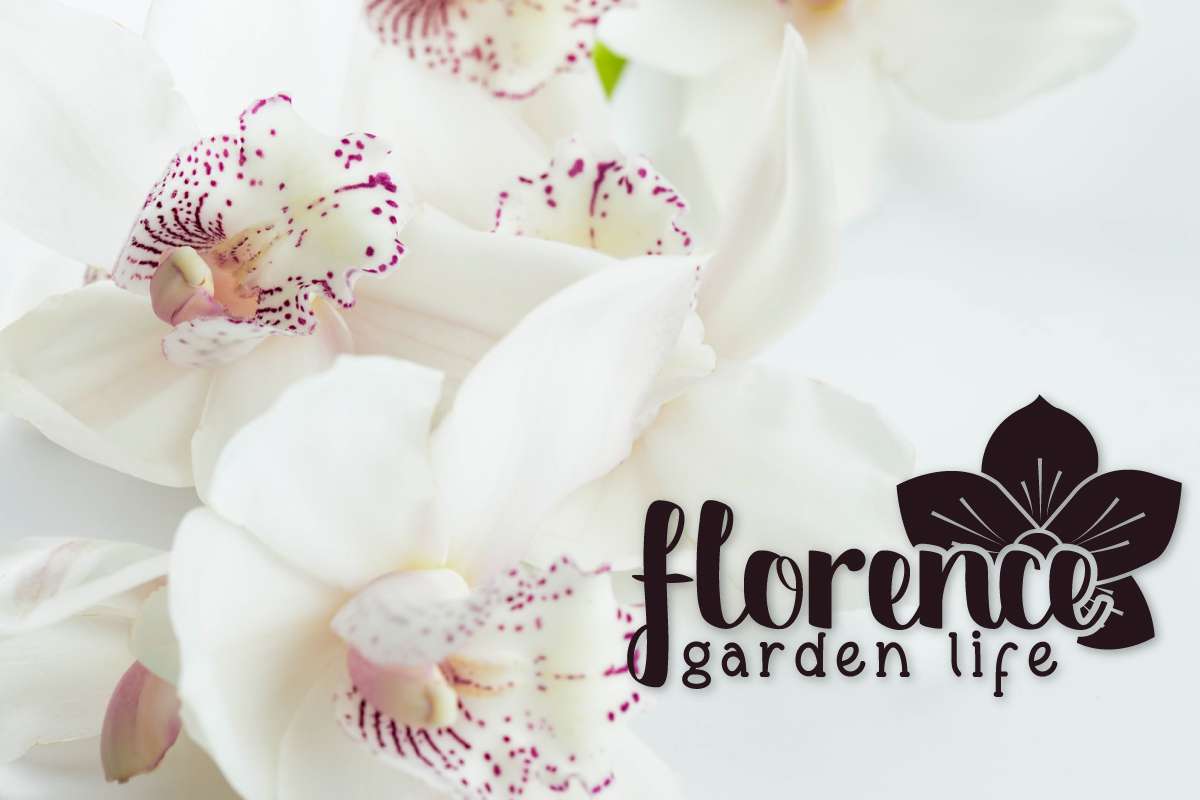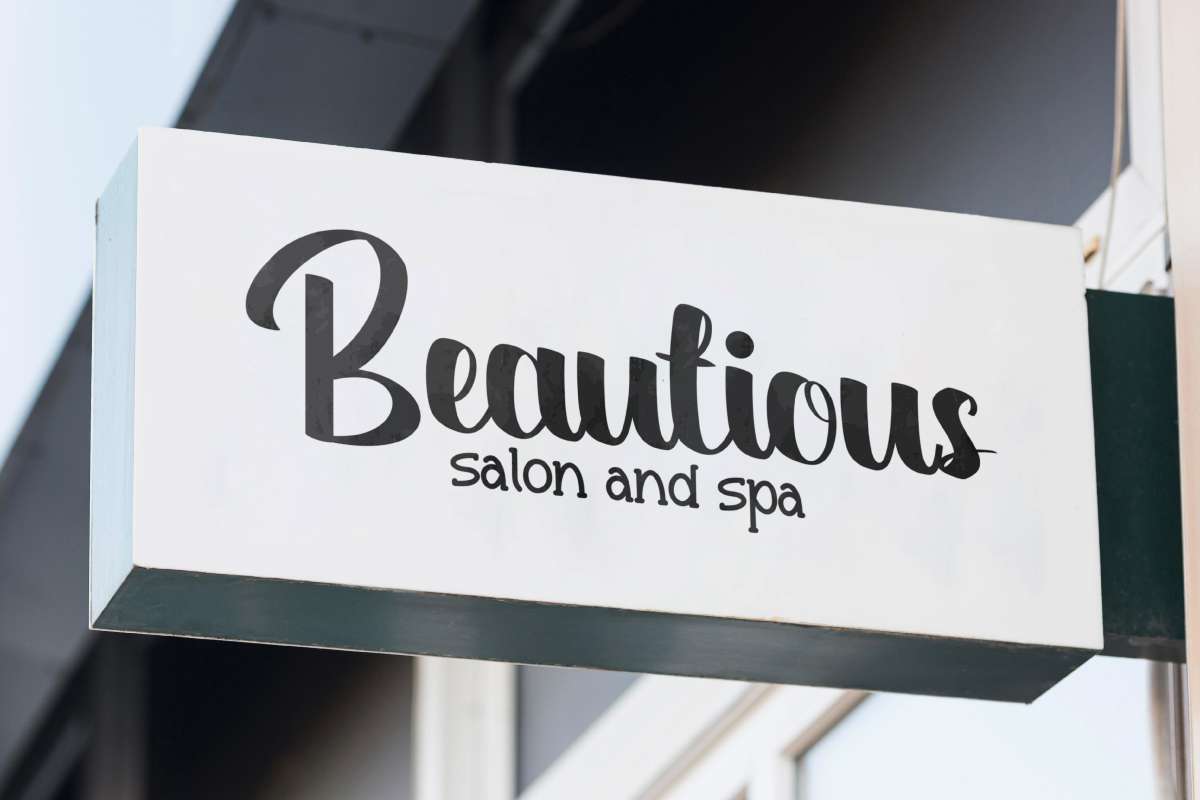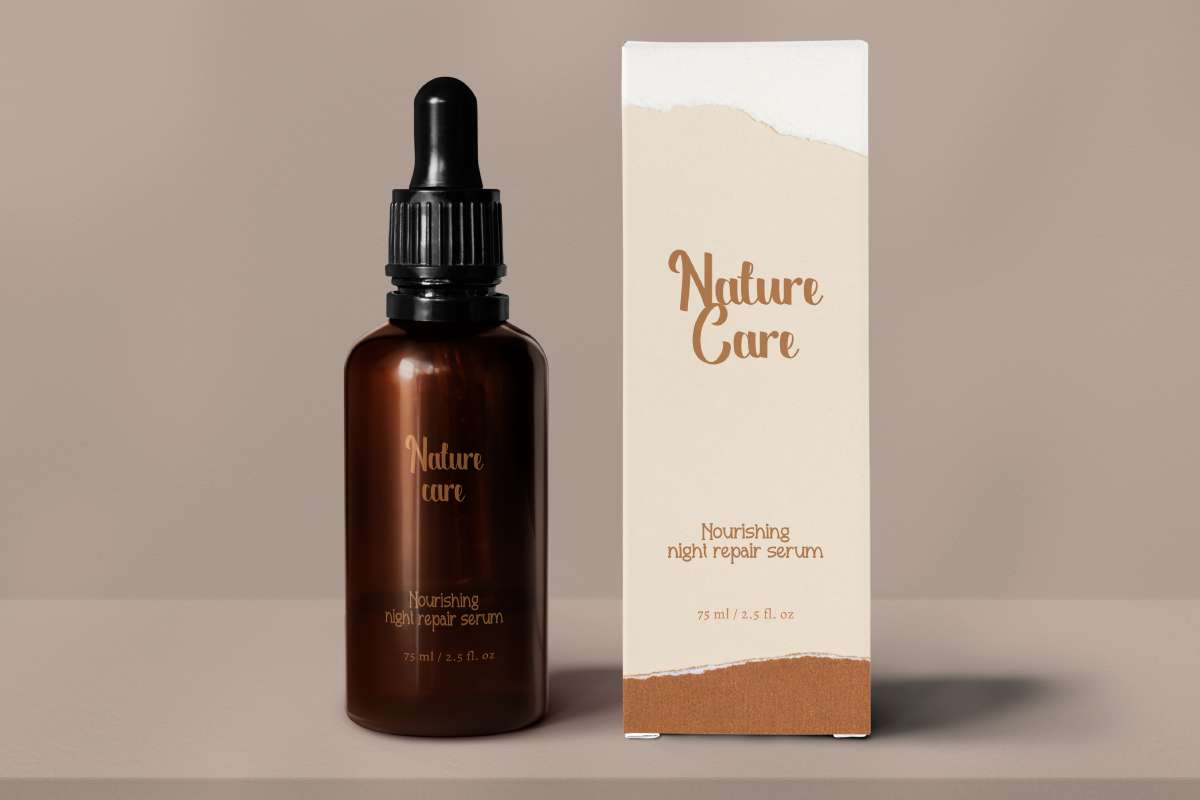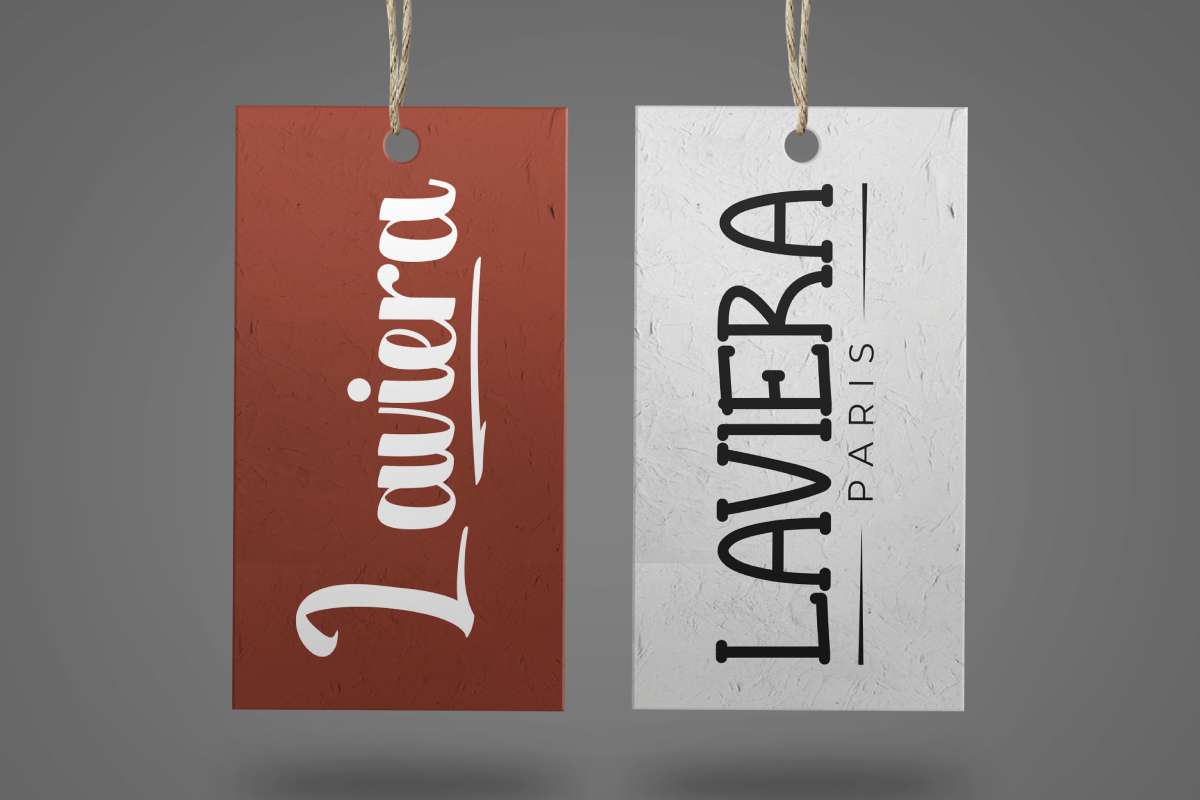
Riberio Font was handcrafted for any your special projects including : logo branding, invitation, products packaging, signage, stationery, social media posts, title or and any projects that need unique style. The theme/industries of this font is Fahion, Food & Beverage, Homeware, Magazine, Movie, Music, Video etc